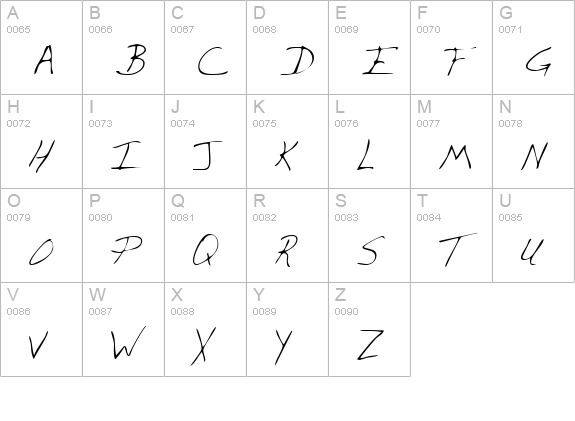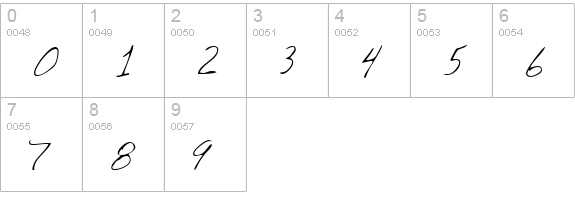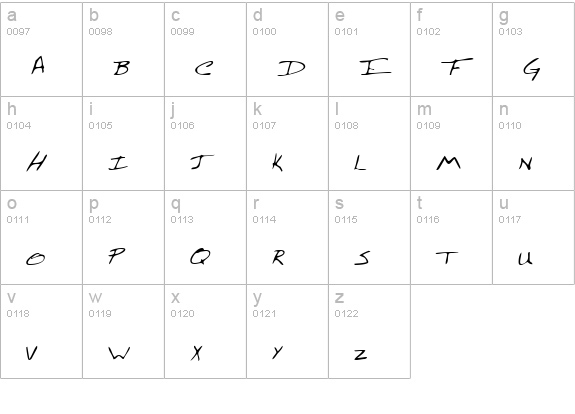
BurtonsHand Regular is the standard, neutral variant in the BurtonsHand typeface family \xE2\x80\x94 well suited to general body text, paragraphs, and standard typographic work.
BurtonsHand Regular font is a charming and versatile typeface that exudes a handcrafted aesthetic with its unique handwritten style. This font is perfect for adding a personal touch to your designs, whether for invitations, posters, logos, or any other creative project. The flowing strokes and whimsical details of BurtonsHand Regular make it a standout choice for those seeking a warm and welcoming feel in their text. Best of all, BurtonsHand Regular font is available for free download exclusively at FontsMarket.com. Embrace the beauty and character of this delightful typeface in your designs today and bring a touch of handmade charm to your work.